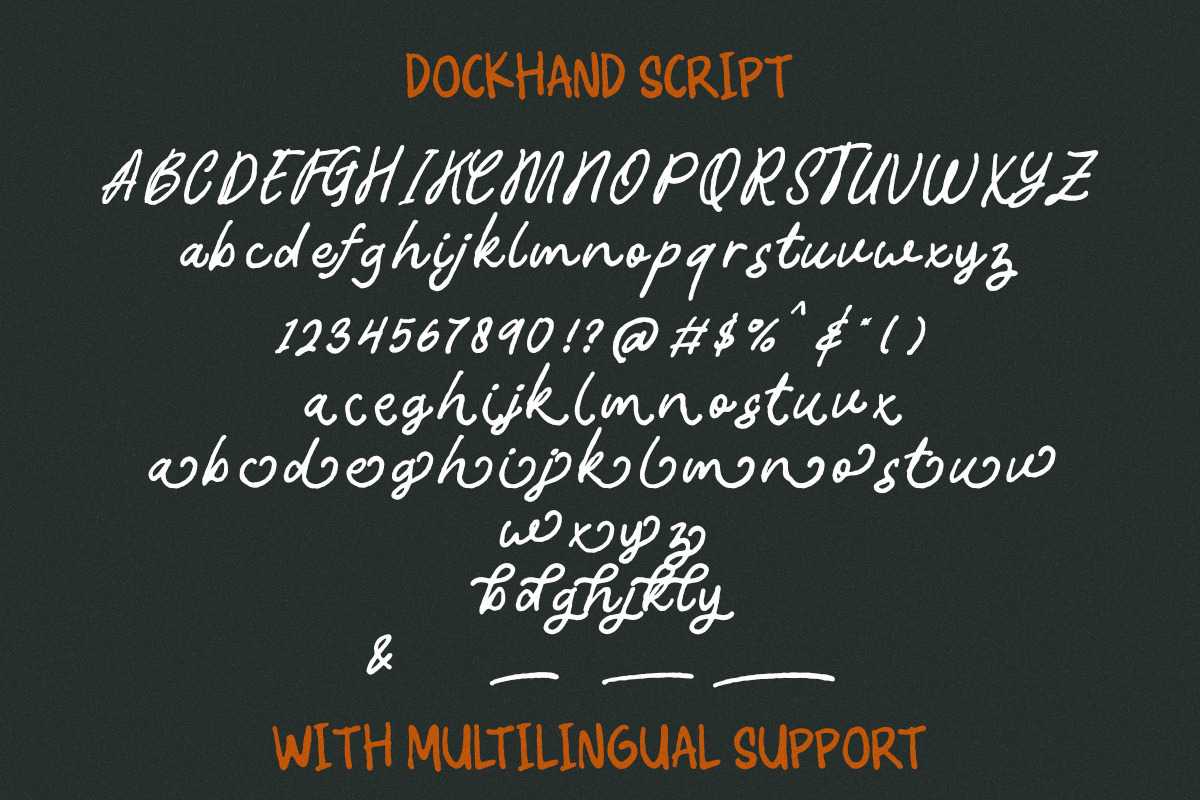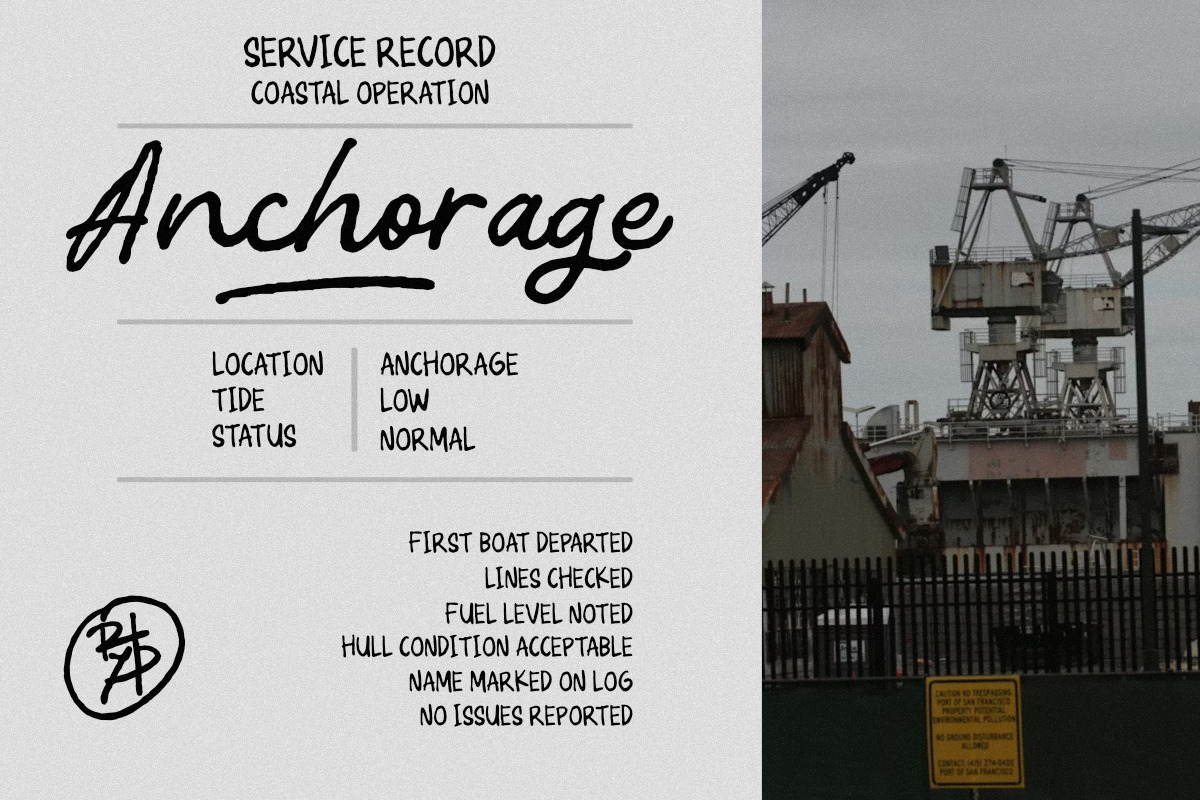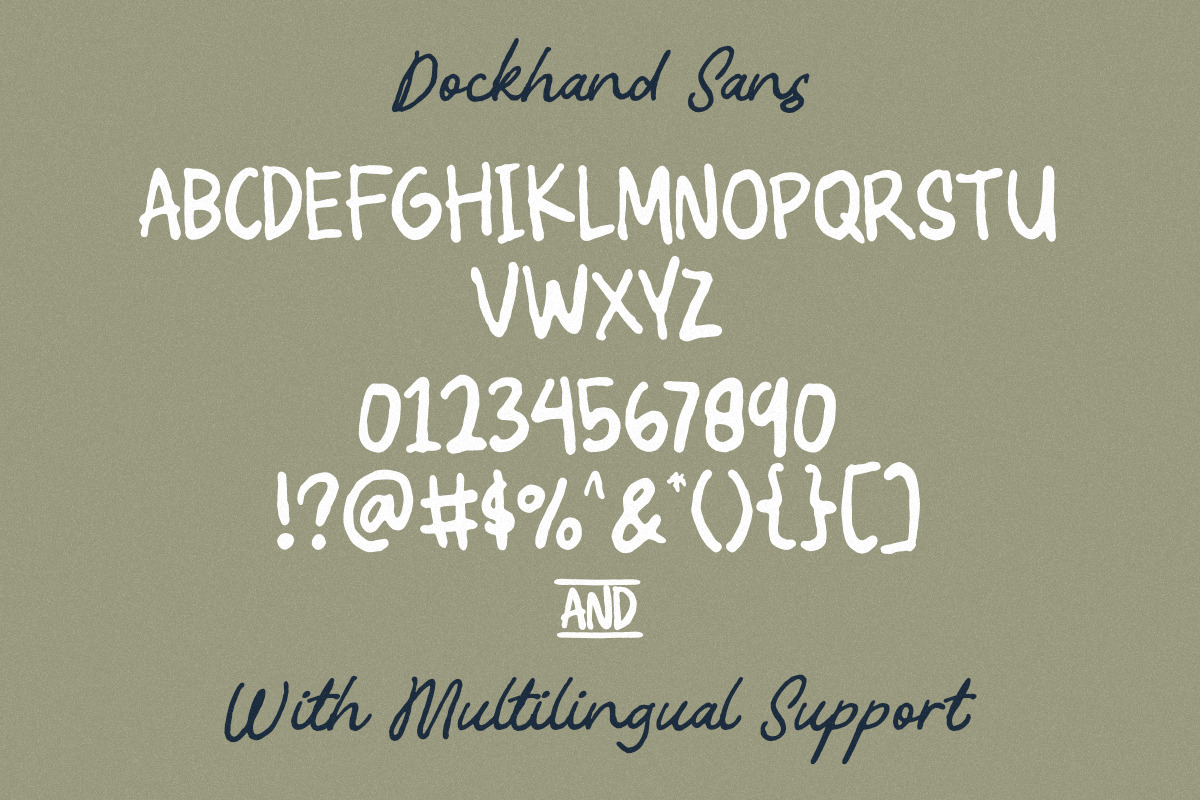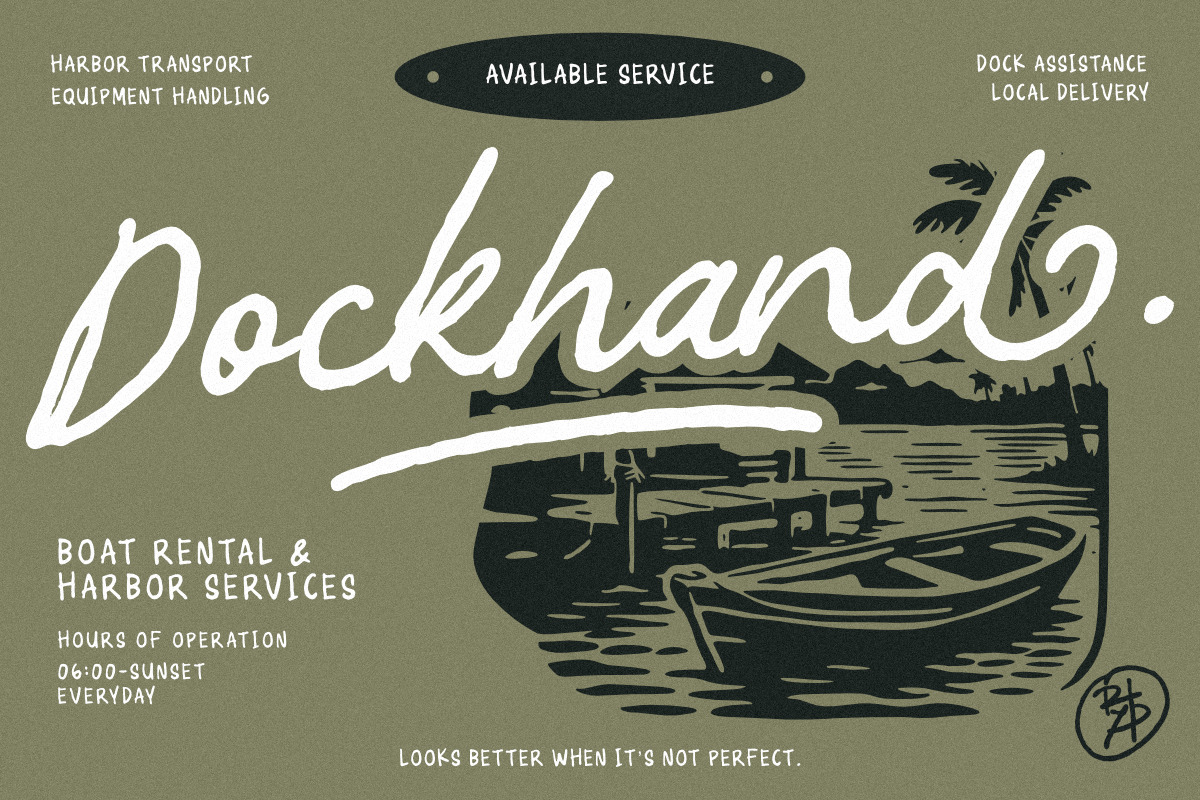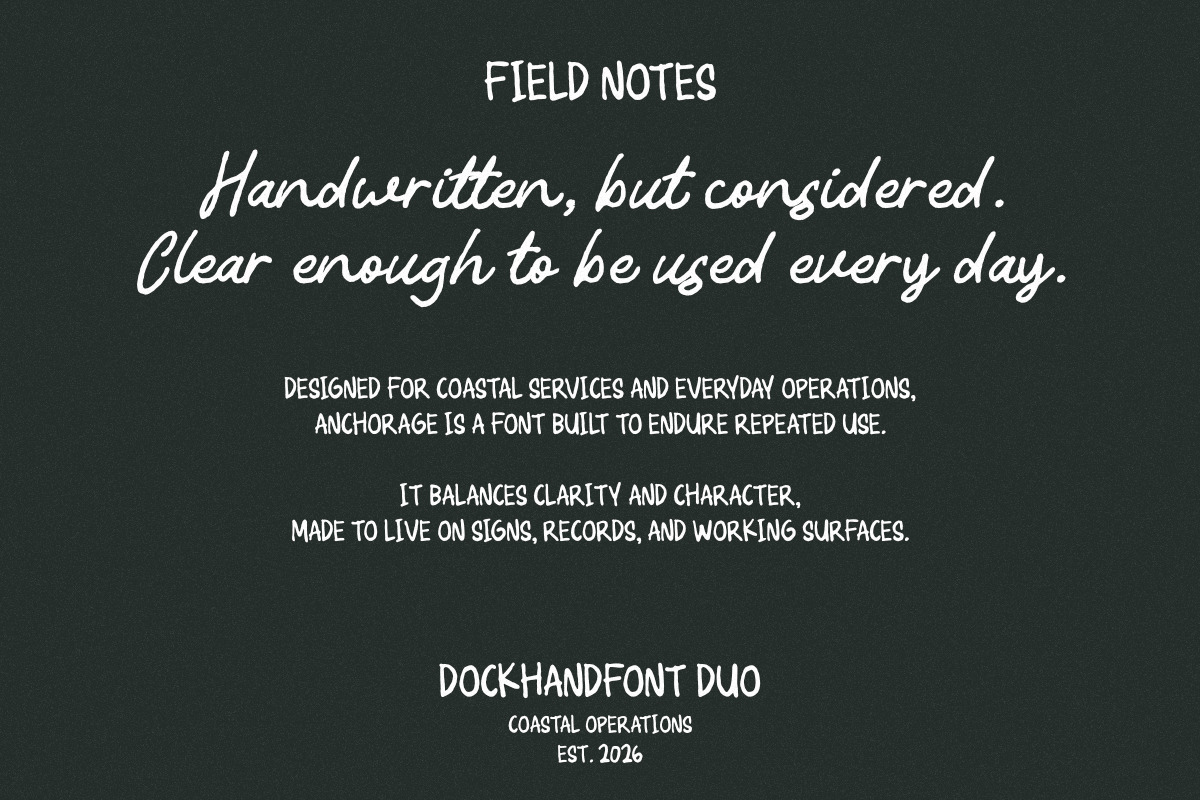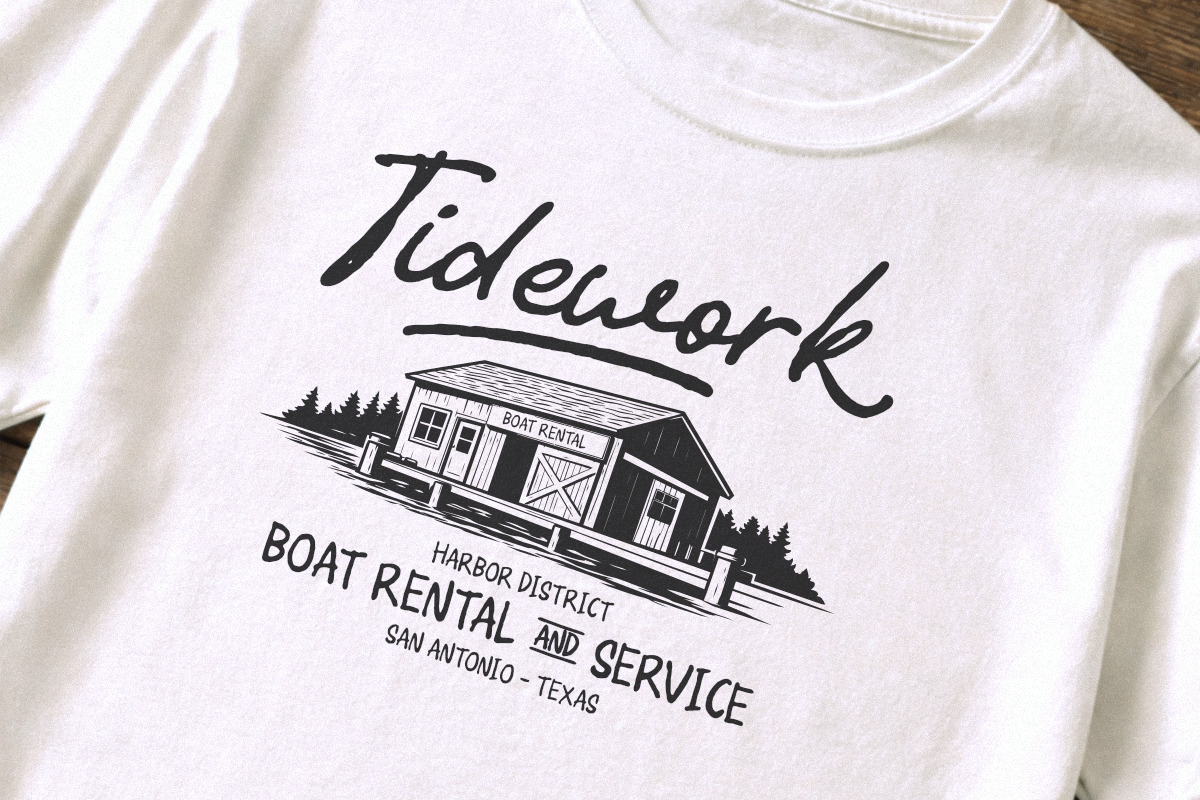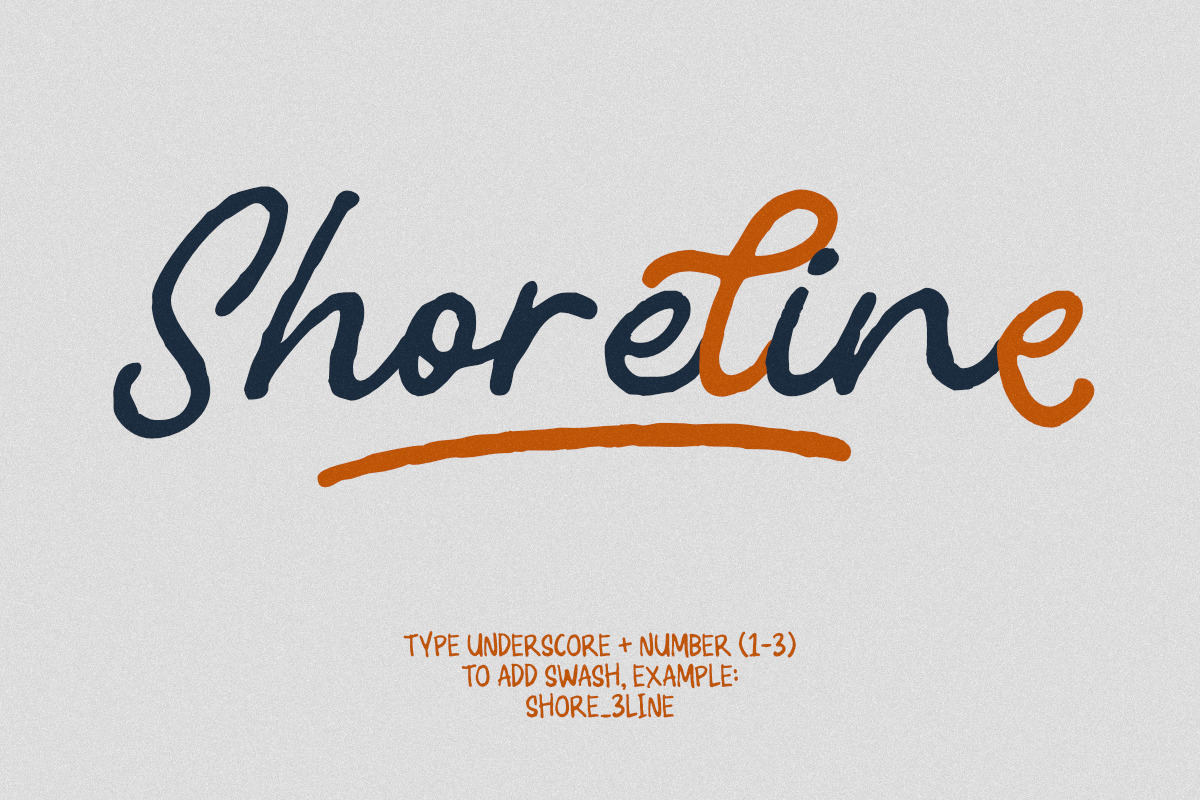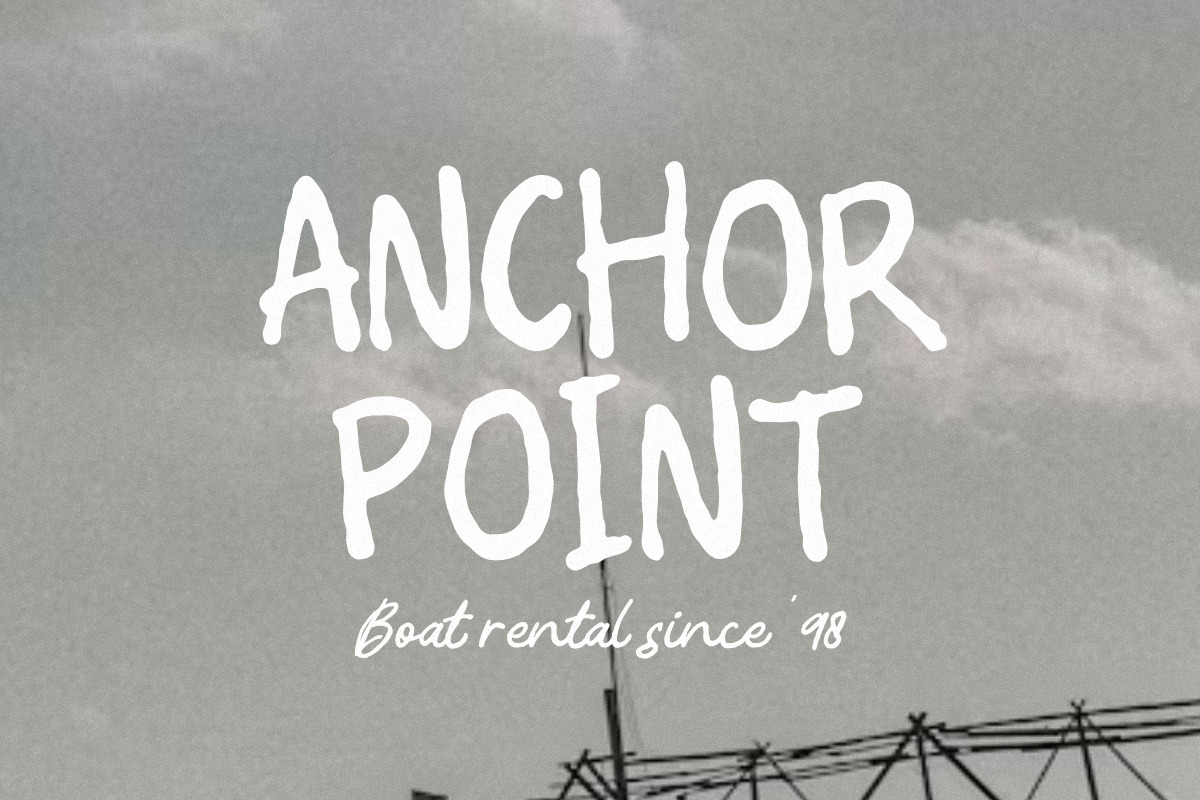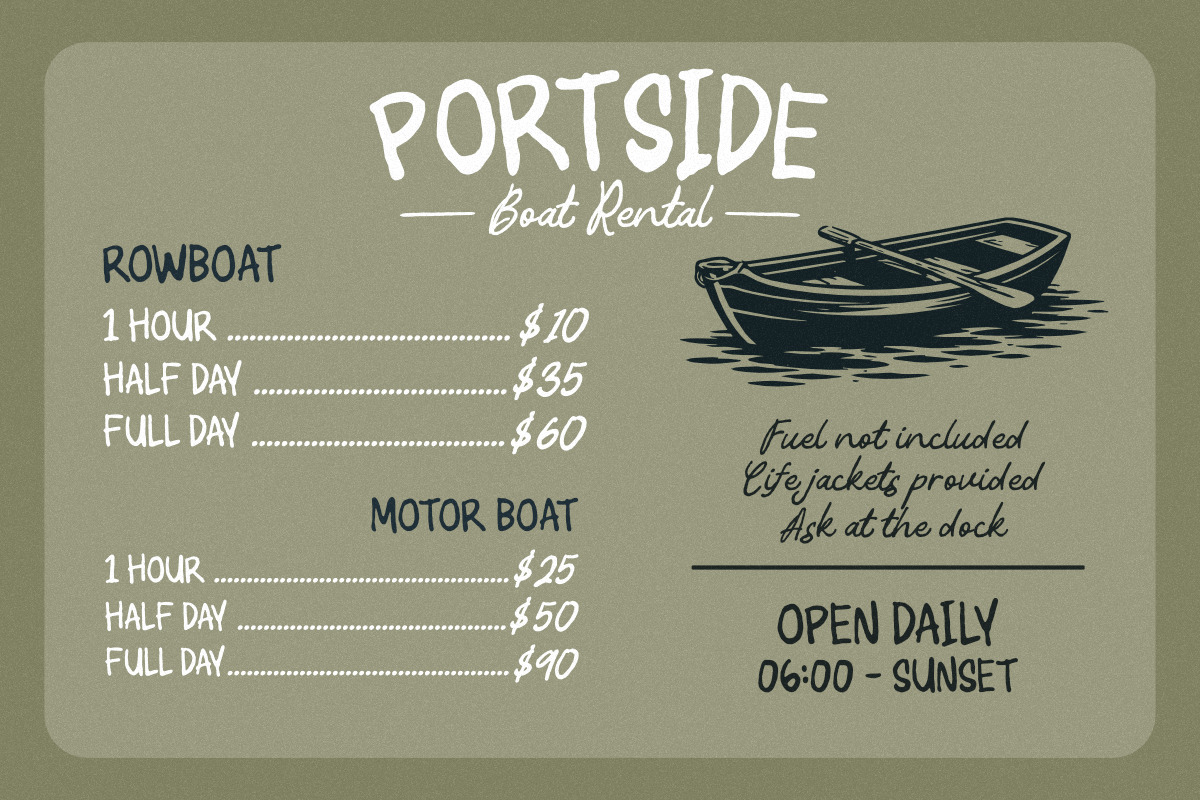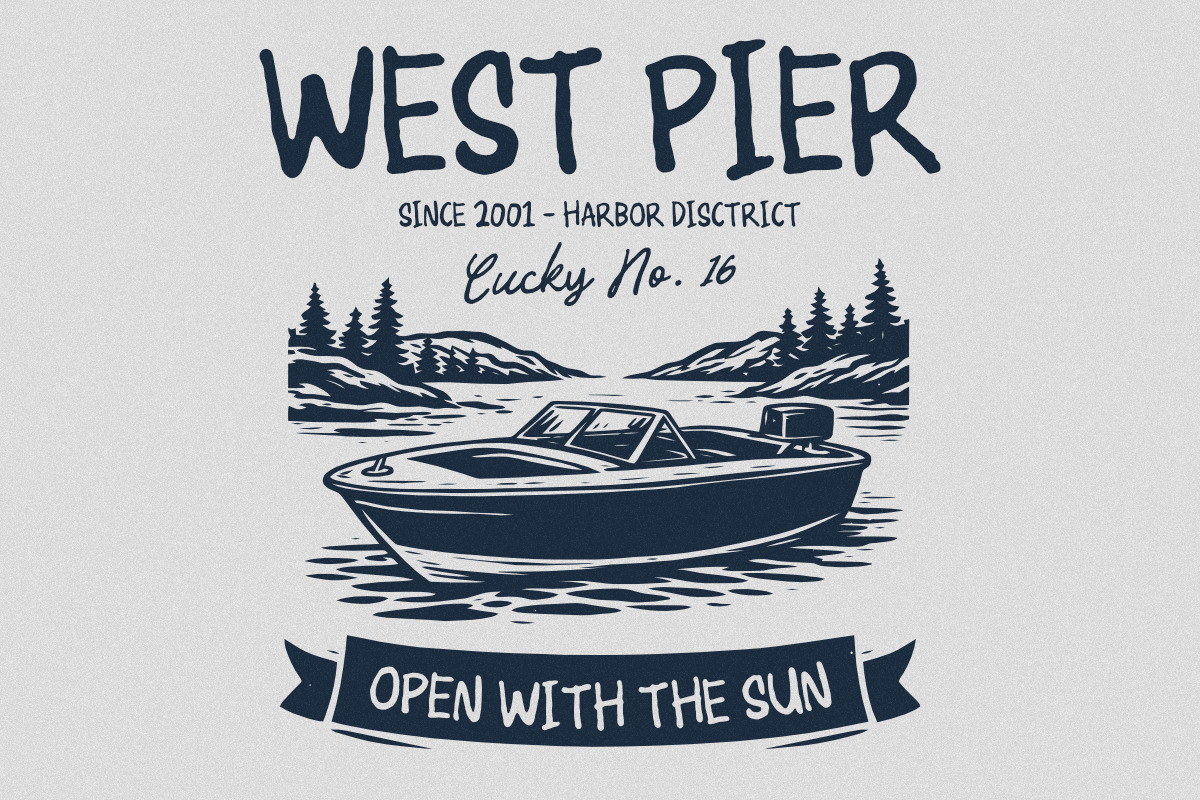
Dockhand Font Duo
Dockhand is a script & sans font duo designed for clarity, structure, and everyday use.
Rooted in coastal work environments, service records, and dockside operations, Dockhand balances human handwriting with a dependable typographic system. The script is clean, controlled, and intentional — written to be understood, not rushed. The sans provides structure, legibility, and order for functional layouts.
Dockhand is built for projects that need character without excess: branding, signage, editorial layouts, documentation, apparel, and visual systems inspired by real working places.
The font includes carefully designed stylistic alternates that subtly vary select letterforms to create a more natural rhythm while maintaining consistency. These alternates are functional, restrained, and suitable for repeated, long-term use.
Dockhand is not decorative by nature — it is made to work.
- Script & Sans font duo
- Clean and legible handwritten script
- Functional sans serif for hierarchy and structure
- Selective stylistic alternates